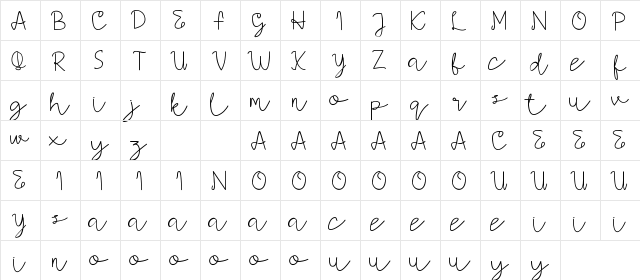
AMORICA SCRIPT DEMO Regular
| Foundry | Edric Studio |
| Designer | Deyan |
Design Context for AMORICA SCRIPT DEMO Typeface
AMORICA SCRIPT DEMO brings a calligraphic fluidity to the page — its connecting strokes and expressive curves give it an unmistakably human quality.